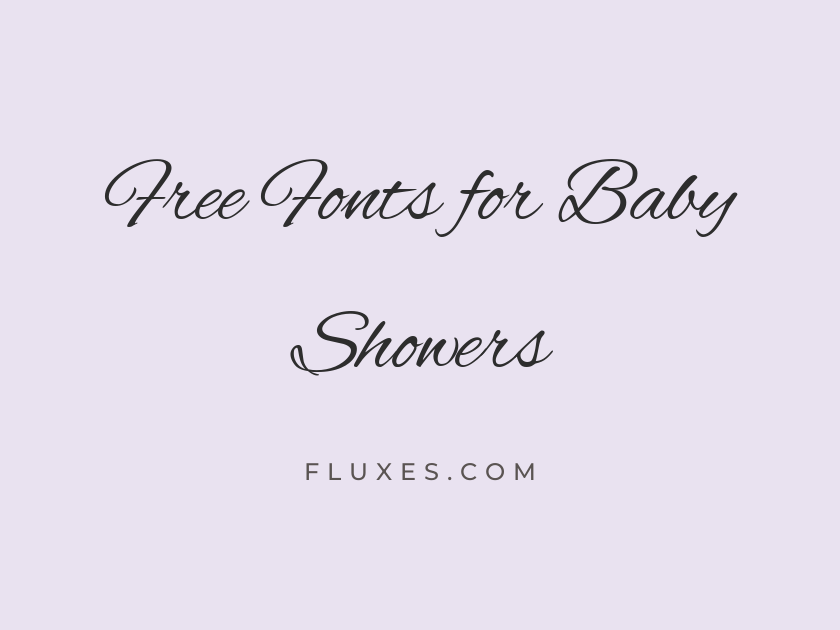
65 Best Free Fonts for Baby Showers
Few celebrations lend themselves to sweet, playful typography quite like a baby shower. Whether you’re designing invitations, table cards, banners, or a nursery print, the right font can capture everything from soft pastel elegance to bright, giggly whimsy. The good news for anyone planning a shower on a budget is that Google Fonts offers an enormous range of free typefaces that fit the mood perfectly, from delicate calligraphy scripts to bubbly hand-lettered display faces.
This roundup pulls together the best free fonts for baby shower invitations, decor, and printables, organized loosely from elegant scripts through to playful hand-drawn and rounded styles, so you can find the right voice for your celebration no matter the theme.
1. Alex Brush
Alex Brush has the loose, confident swing of a monoline calligraphy pen, making it a favorite for baby shower invitation headlines that want warmth without stiffness. It reads best set large, since its fine strokes can thin out at small sizes.
2. Allura
Slim and romantic, Allura brings an airy, feminine touch that suits pastel color palettes and floral invitation suites.
3. Great Vibes
One of the most widely used script fonts on the platform, Great Vibes has a flourish-heavy, old-world elegance that works beautifully as an accent word paired with a clean sans serif body.
4. Parisienne
Parisienne leans softer and rounder than most scripts in this style, giving it a gentle, storybook charm rather than a formal wedding feel.
5. Pinyon Script
Pinyon Script is narrower and more upright than typical brush scripts, with elegant looping ascenders that make it a strong choice for a monogram or a single emphasized name on an invite.
6. Sacramento
Thin, casual, and slightly retro, Sacramento feels handwritten in the nicest way, like a note jotted on a keepsake card rather than a formal announcement.
7. Tangerine
Tangerine is delicate almost to a fault; at small sizes its hairlines can disappear, so reserve it for large headers or use the bold weight shown here for better presence on printed cards.
8. Dancing Script
Dancing Script is one of the most dependable free script fonts around: bouncy, legible, and friendly rather than fussy.
It pairs effortlessly with almost any sans serif for body copy, which is part of why it shows up so often on baby shower invitation templates and printable decor.
9. Satisfy
Satisfy has a relaxed, brush-marker quality that feels more casual than a formal calligraphy script, suiting laid-back garden or backyard showers.
10. Kristi
Kristi is a compact, fast-moving script with a slightly imperfect, hand-drawn energy that works well for short phrases like “oh baby” on a banner.
11. Mrs Saint Delafield
Wildly expressive and full of long, sweeping connectors, Mrs Saint Delafield reads like a signature more than a typeface. It shines as a decorative flourish on save-the-date style cards but struggles as body text.
12. Herr Von Muellerhoff
Herr Von Muellerhoff is another highly ornamental script, dramatic and narrow, best reserved for a single word or name rather than a full sentence.
13. Cookie
Cookie earns its name with a soft, bubbly script that feels playful and food-adjacent, making it a natural fit for dessert table signage at a shower.
14. Marck Script
Marck Script has a warm, personal, almost diary-like handwriting feel, less polished than a formal calligraphy face and better for that reason on casual invites.
15. Yellowtail
Yellowtail is bold and rounded with a retro surfer-style bounce, giving it a cheerful, upbeat tone that suits bright, fun color schemes rather than muted, elegant ones.
16. Bilbo
Bilbo is a whimsical, slightly wobbly script that feels hand-lettered with a fine marker, a nice match for storybook or Winnie-the-Pooh style nursery themes.
17. Meddon
Meddon sits between casual and formal, with clean loops and consistent proportions that make it more legible in longer sentences than many decorative scripts.
18. Rouge Script
Rouge Script has confident, sturdy strokes that hold up well even at moderate sizes, so it can do a bit more work as invitation body text than some of its more delicate cousins.
19. Italianno
A darling new arrival is coming
Italianno is extremely thin and ornate, gorgeous on gold foil or letterpress-style designs but genuinely difficult to read below headline size, so use it sparingly.
20. Euphoria Script
Baby dreams and sweet beginnings ahead
Euphoria Script
Euphoria Script feels a touch more contemporary than traditional calligraphy scripts, with a slight forward lean and cleaner joins that fit a modern minimalist invitation suite.
21. Playball
Oh baby, let's celebrate together
Playball is a friendly, rounded script with just enough informality to read as fun rather than fancy, a good fit for gender-neutral or playful shower themes.
22. Berkshire Swash
Rock a bye, baby shower time
Berkshire Swash is a swash-heavy display script with real personality; its exaggerated curves make short headlines pop but crowd together in longer lines.
23. Norican
Precious cargo arriving very soon
Norican leans casual and slightly retro, with a hand-brushed quality that softens well against pastel or watercolor backgrounds.
24. Grand Hotel
A tiny star is on the way
Grand Hotel has an art-deco, vintage postcard charm, less common in baby shower design but a lovely surprise for a retro or “little vintage” themed party.
25. Lavishly Yours
Sweetly waiting to meet our baby
Lavishly Yours
A newer addition to Google Fonts, Lavishly Yours has thin, romantic strokes with a modern wedding-invite sensibility that translates just as well to an elegant baby shower.
26. Pacifico
Sunshine, lullabies, and tiny baby toes
Pacifico is one of the most recognizable free script fonts online, rounded and friendly with 1950s surf-shop roots.
It works nicely for casual, brightly colored shower graphics, though its heavier weight means it competes for attention if placed near other bold elements.
27. Ballet
Every little heartbeat is a gift
Ballet
Ballet is a variable, calligraphic script with genuinely fine detail and elegant contrast between thick and thin strokes, best appreciated at larger display sizes.
28. Caveat
Can't wait to meet you, baby
Caveat is a natural, unfussy handwriting font that looks like it was scribbled with a felt-tip pen, which makes it ideal for casual notes, place cards, or a printable sign that needs a personal touch.
29. Kalam
Sweet baby, so loved already
Kalam has a slightly heavier, marker-like stroke than most handwriting fonts, giving it good presence on colorful printables and onesie iron-ons.
30. Shadows Into Light
A little peanut is on the way
Shadows Into Light is thin and casual, evoking a quick note dashed off on a card; it suits understated, minimal shower stationery rather than bold statement pieces.
31. Patrick Hand
Baby shower brunch, all are welcome
Patrick Hand reads like tidy schoolteacher handwriting, clear and rounded enough to work comfortably as body copy on invitations and menus alike.
32. Gochi Hand
Little dreamer arriving this spring
Gochi Hand has a slightly wobbly, childlike quality that fits sweetly with storybook or nursery-rhyme themed decor.
33. Architects Daughter
Building a family, one tiny toe at a time
Architects Daughter has an appealing sketchbook casualness, angular rather than looped, that pairs nicely with hand-drawn illustrations of baby items on printable decor.
34. Indie Flower
A bundle of joy is coming
Indie Flower is bubbly and rounded with a slightly bouncing baseline, giving it a cheerful, doodle-like feel that suits playful shower games and activity cards.
35. Handlee
Please RSVP for our baby shower
Handlee
Handlee is clean and legible for a handwriting-style font, making it one of the safer choices when you need script character but still need guests to read the details easily.
36. Coming Soon
Baby girl or boy, coming soon
Coming Soon
The name says it all: Coming Soon is a relaxed, rounded handwriting face that works perfectly for gender-reveal announcements and countdown graphics.
37. Nanum Pen Script
Rock-a-bye baby, almost here
Nanum Pen Script
Nanum Pen Script has a loose, brush-pen character with slightly inconsistent stroke widths that give it an authentic, unpolished handwritten warmth.
• Language support: Latin, Korean
38. Reenie Beanie
Guess how big mommy's belly is
Reenie Beanie
Reenie Beanie is a fast, casual script with a fun, slightly messy energy, well suited to game cards and activity sheets rather than formal invitations.
39. Schoolbell
Nap time, playtime, baby shower time
Schoolbell has a chunky, childlike printing style reminiscent of early reader books, a good match for alphabet or nursery-rhyme themed showers.
40. Just Another Hand
Baby's first party starts here
Just Another Hand is narrow and quick, with a casual slant that keeps longer captions from feeling too heavy on a busy printable.
41. Crafty Girls
Sweet little one, so loved
Crafty Girls
Crafty Girls skews younger and sweeter than most handwriting fonts, with rounded dots and looping letters that feel almost like a child’s own printing, charming for pink or lavender themed showers.
42. Short Stack
Pancakes, syrup, and baby love
Short Stack
Short Stack has a friendly, slightly squat printed look, less script and more casual print, which makes it easy to read on menu cards for a brunch-themed shower.
43. Mali
Wishing baby a lifetime of love
Mali
Mali is a soft, rounded handwriting font with gentle curves that read as warm rather than childish, a nice middle ground for showers that want charm without being overly cutesy.
44. Fredoka
Oh baby, it's almost time
Fredoka is a rounded, bubbly display sans that has become a go-to for cheerful, kid-friendly branding, and it works just as well printed large on a baby shower banner.
Its soft terminals and generous curves keep it friendly at nearly any size, and it holds up well on both screen and print.
45. Baloo 2
Little hands, little feet, big love
Baloo 2 is sturdy and rounded with plenty of visual weight, making it a strong choice for headline text on posters or backdrop signage where you need something to be read from across the room.
46. Chewy
Baby shower snacks and sweet treats
Chewy has a puffy, cartoonish outline that instantly reads as playful, especially good for dessert table labels and party game titles.
47. Sniglet
Round bellies, round cheeks, round hearts
Sniglet is soft and bubble-like, evoking the rounded shapes of baby toys and building blocks, a nice pick for gender-neutral nursery graphics.
• Styles: 2 weights (Regular, Extra-Bold)
48. Bubblegum Sans
Pop by for our baby shower
Bubblegum Sans
Bubblegum Sans is exactly as fun as its name suggests, chunky and candy-colored in feel even before you apply any actual color.
49. Luckiest Guy
It's a boy! It's a girl!
Luckiest Guy is a bold, comic-style display font built for shouting a short phrase, perfect for a gender-reveal banner headline but overwhelming in longer copy.
50. Boogaloo
Bouncing bundles of pure joy
Boogaloo has a springy, rounded retro character that works well for playful invitation headers without tipping into full cartoon territory.
51. Fredericka the Great
Once upon a time, a baby
Fredericka the Great has an inky, storybook-illustration quality, slightly rough around the edges, that suits fairy tale or nursery-rhyme themed showers particularly well.
52. Henny Penny
A tiny chick has hatched
Henny Penny
Henny Penny looks hand-carved and a little rustic, originally designed with a Halloween sensibility but surprisingly at home on farm or barnyard themed baby showers.
53. Skranji
Peek-a-boo, baby's on the way
Skranji
Skranji has a hand-cut, stenciled look with rounded corners softening what would otherwise feel quite bold, useful for playful headers that still need to stay legible.
54. Sunshiney
You are my sunshine, little one
Sunshiney
Sunshiney is loose and casual with a sunny, doodled quality that fits literally and thematically with a “you are my sunshine” nursery theme.
55. Cherry Cream Soda
Sweet as soda, sweet as pie
Cherry Cream Soda
Cherry Cream Soda has a bubbly, slightly retro soda-shop feel, chunky enough to hold up as a poster headline.
56. Itim
Tiny toes and baby dreams
Itim
Itim is a casual, marker-drawn font with a relaxed slant, a good lightweight alternative when Caveat or Kalam feel slightly overused.
57. Quicksand
Welcome to the world, little one
Quicksand is a geometric rounded sans with soft, friendly curves that never tip into overtly childish territory, which makes it a dependable body font for invitation details, RSVP cards, and registry information.
58. Comfortaa
Soft dreams and gentle beginnings
Comfortaa has rounded terminals and generous spacing that read as understated and modern, a good match for minimalist, neutral-toned nursery designs.
59. Varela Round
Every baby deserves a warm welcome
Varela Round is compact and evenly weighted, quietly cheerful rather than loud, and works well set small for addresses or fine print on invitations.
• Language support: Latin, Latin Extended, Hebrew, Vietnamese
60. Nunito
Please join us for a baby shower
Nunito is one of the most versatile rounded sans fonts on Google Fonts, soft enough to feel warm but restrained enough to remain highly legible in longer paragraphs of invitation text.
61. Playfair Display
Please join us in welcoming baby
For showers with a more grown-up, editorial aesthetic, such as a botanical or neutral-toned “modern nursery” theme, Playfair Display brings crisp high-contrast elegance that pairs beautifully with a delicate script accent.
62. Cormorant Garamond
With love, we await our little one
Cormorant Garamond is slim, refined, and quietly formal, an excellent choice for the fine print on an invitation, such as details, dates, and registry information.
63. EB Garamond
You are cordially invited to celebrate
EB Garamond brings a timeless, literary feel that works particularly well for showers styled around classic children’s books or a vintage library theme.
64. Libre Baskerville
Please save the date for baby
Libre Baskerville is sturdy and highly readable even at smaller sizes, a practical pick for longer passages of text like directions, schedules, or a printed program.
65. Cormorant
A gentle soul is on the way
Cormorant is the display-oriented sibling of Cormorant Garamond, thinner and more dramatic, best used sparingly for headlines rather than body copy.
Pairing and using these fonts well
For invitations, pair one expressive script for the headline with a simple, legible sans or serif for the details. Quicksand, Nunito, or EB Garamond all work well in that supporting role.
Keep delicate scripts like Italianno or Tangerine large; they lose clarity fast at small sizes. Save them for a name, a date, or a single word rather than a full sentence.
For nursery decor and printables, rounded sans fonts such as Fredoka, Baloo 2, or Varela Round hold up well both on screen and in print, and they stay friendly without feeling too juvenile for a keepsake piece.
With this many free, well-crafted options to choose from, there is no need to default to an overused system font for a celebration this personal. A thoughtful pairing of script and sans, or a single well-chosen display face, can make even a simple printable feel like it was designed just for the occasion.